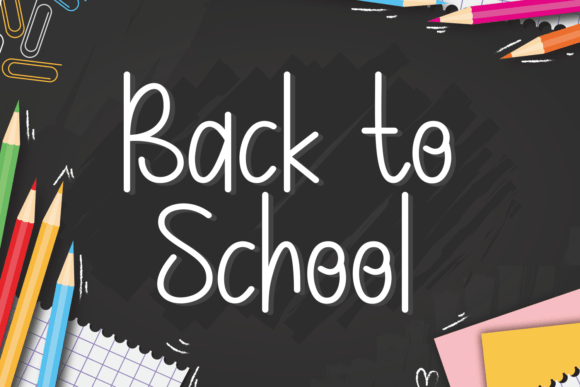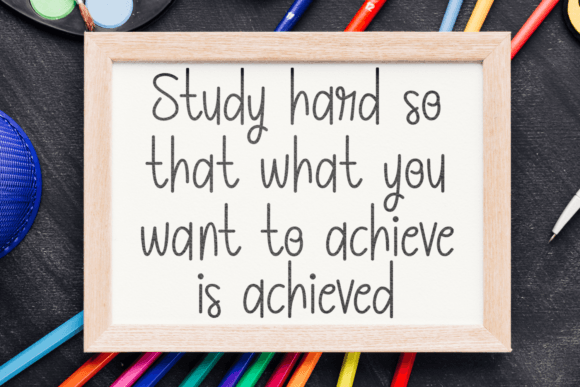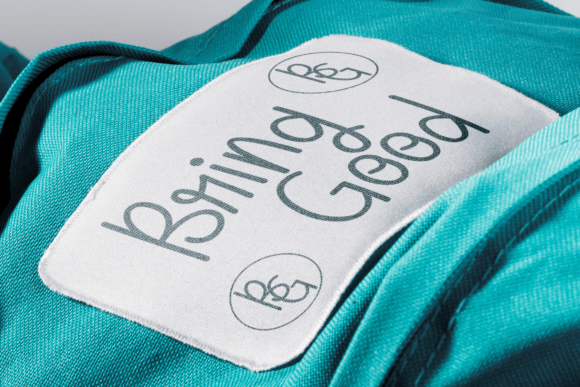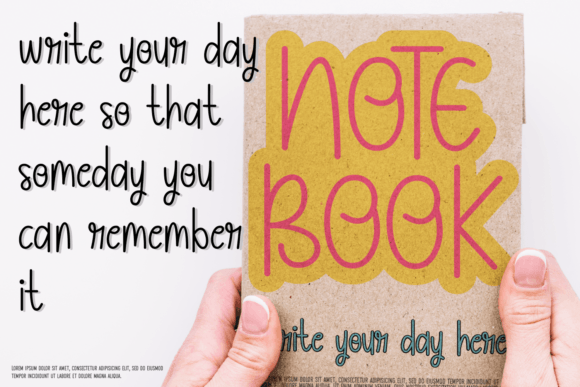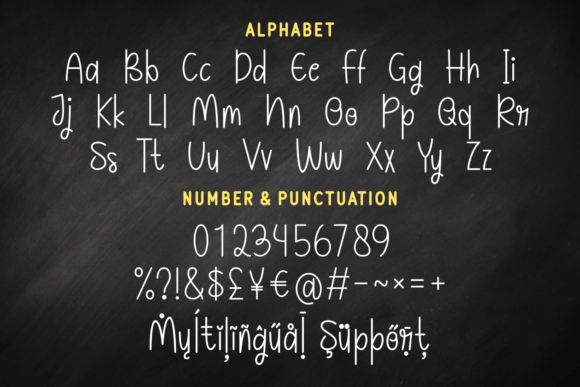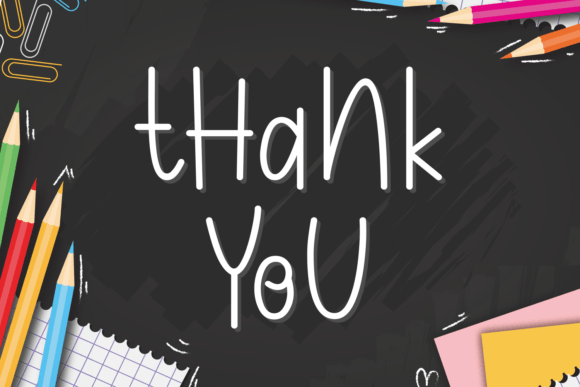
Dreaming School Font: The Sweet and Friendly Handwritten Font for Your Designs
Are you a designer or crafter looking for a font that can add a touch of sweetness and friendliness to your designs? Look no further than the Dreaming School font! This beautiful handwritten font is perfect for a wide range of design projects, from invitations and greeting cards to logos and branding materials.
What Makes Dreaming School Font So Special?
Dreaming School font is a sweet and friendly handwritten font that boasts a natural and unique style. Its effortless charm makes it incredibly fitting for a large pool of designs, and the only limit is your imagination! Whether you’re creating a design for a children’s brand, a wedding invitation, or a social media post, this font is sure to bring a smile to your audience’s faces.
Key Features of Dreaming School Font
- Handwritten style: Dreaming School font has a beautiful, handwritten style that adds a personal touch to any design.
- Natural and unique: The font’s natural and unique style makes it stand out from more traditional fonts.
- Versatile: Dreaming School font can be used for a wide range of design projects, from invitations and greeting cards to logos and branding materials.
- Easy to read: Despite its handwritten style, Dreaming School font is easy to read, making it perfect for designs that require a lot of text.
Uses for Dreaming School Font
Dreaming School font is incredibly versatile, and can be used for a wide range of design projects, including:
- Invitations: Whether you’re planning a wedding, birthday party, or baby shower, Dreaming School font is perfect for creating beautiful and unique invitations.
- Greeting cards: Add a personal touch to your greeting cards with Dreaming School font, perfect for birthdays, holidays, and more.
- Logos and branding: Use Dreaming School font to create a unique and memorable logo for your business or brand.
- Social media graphics: Add a touch of personality to your social media graphics with Dreaming School font, perfect for posts, stories, and more.
- Crafting projects: Dreaming School font is also perfect for crafters, and can be used for a wide range of projects, from scrapbooking to DIY signs.
Tips for Using Dreaming School Font
Here are a few tips for getting the most out of Dreaming School font:
- Experiment with colors: Dreaming School font looks great in a variety of colors, so don’t be afraid to experiment and find the perfect color for your design.
- Pair with other fonts: Dreaming School font pairs well with a variety of other fonts, so try pairing it with a bold font for a fun and playful look.
- Use it sparingly: While Dreaming School font is beautiful, it can be overwhelming if used too much. Use it sparingly to add a touch of personality to your design.
Dreaming School font is a beautiful and versatile handwritten font that’s perfect for designers and crafters. Its natural and unique style makes it incredibly fitting for a wide range of designs, and its ease of use makes it a great choice for projects of all sizes. Whether you’re creating invitations, greeting cards, logos, or social media graphics, Dreaming School font is sure to add a touch of sweetness and friendliness to your designs.